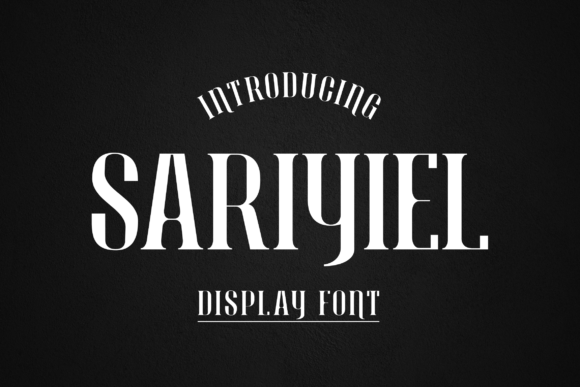
Introducing Sariyiel Font, a culinary-inspired display font that will tantalize your taste buds and elevate your designs to new heights of flavor!
Sariyiel's bold and thick letters command attention, just like a food truck's mouthwatering menu. Its uniquely shaped characters add a dash of intrigue, making it the perfect choice for creating designs that are as visually appealing as they are delicious.
Picture this: your food truck's logo, emblazoned with Sariyiel Font, standing out like a beacon of culinary delight. The font's imposing presence will draw customers in, captivating them with its charm and personality.
Sariyiel is not just for food trucks, though. Its versatility extends to a wide range of creations, from restaurant menus and packaging to posters and social media graphics. Its distinct touch will add a touch of spice to any project, leaving your audience hungry for more.